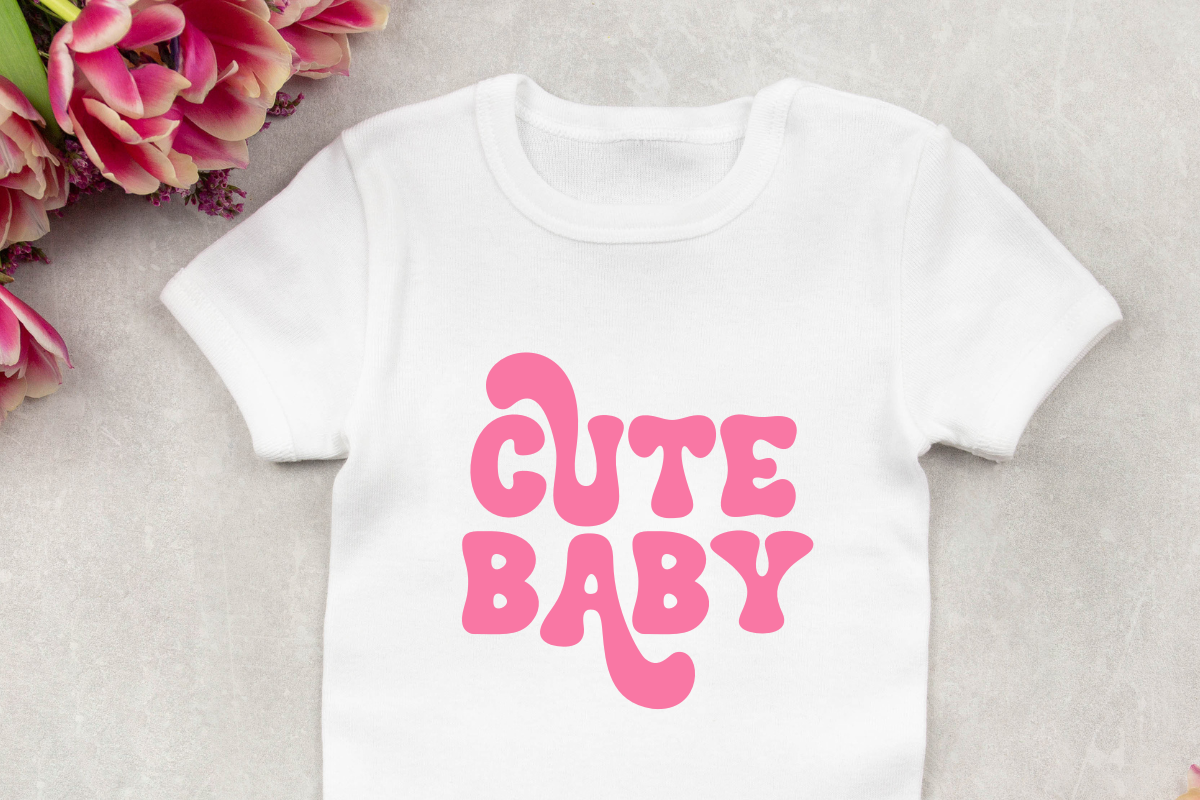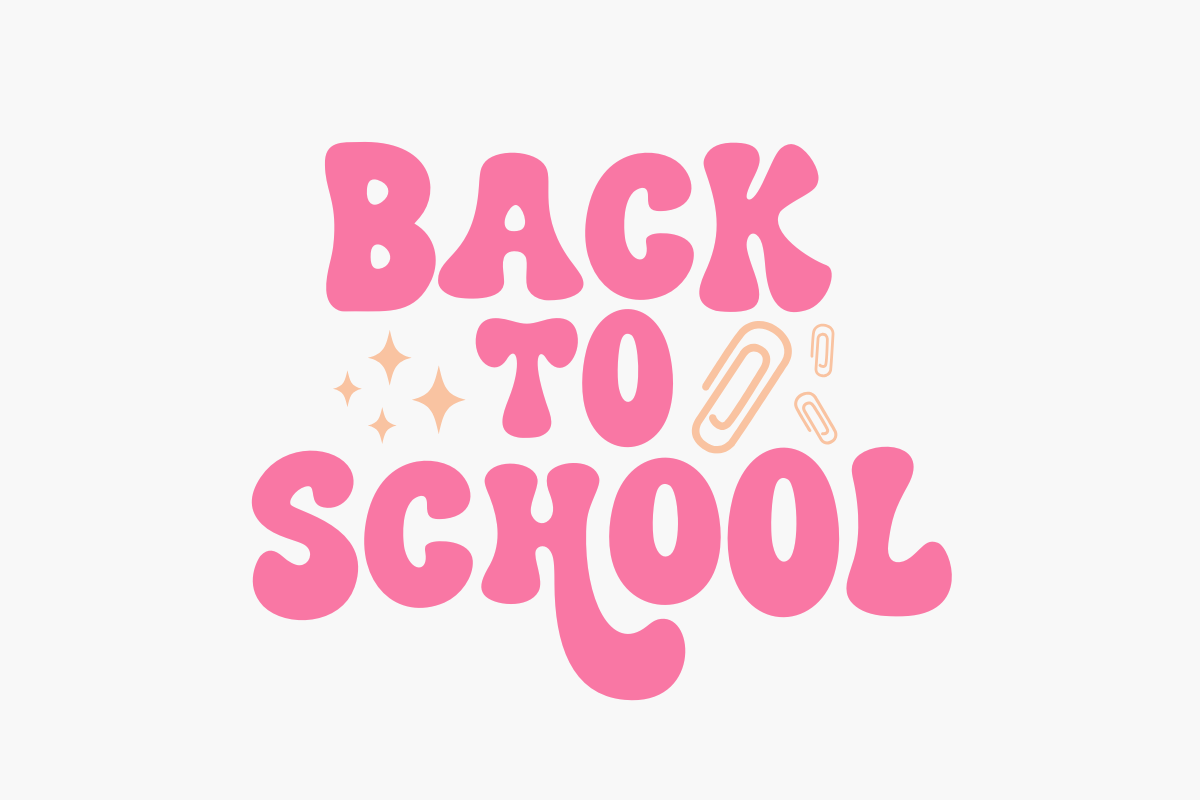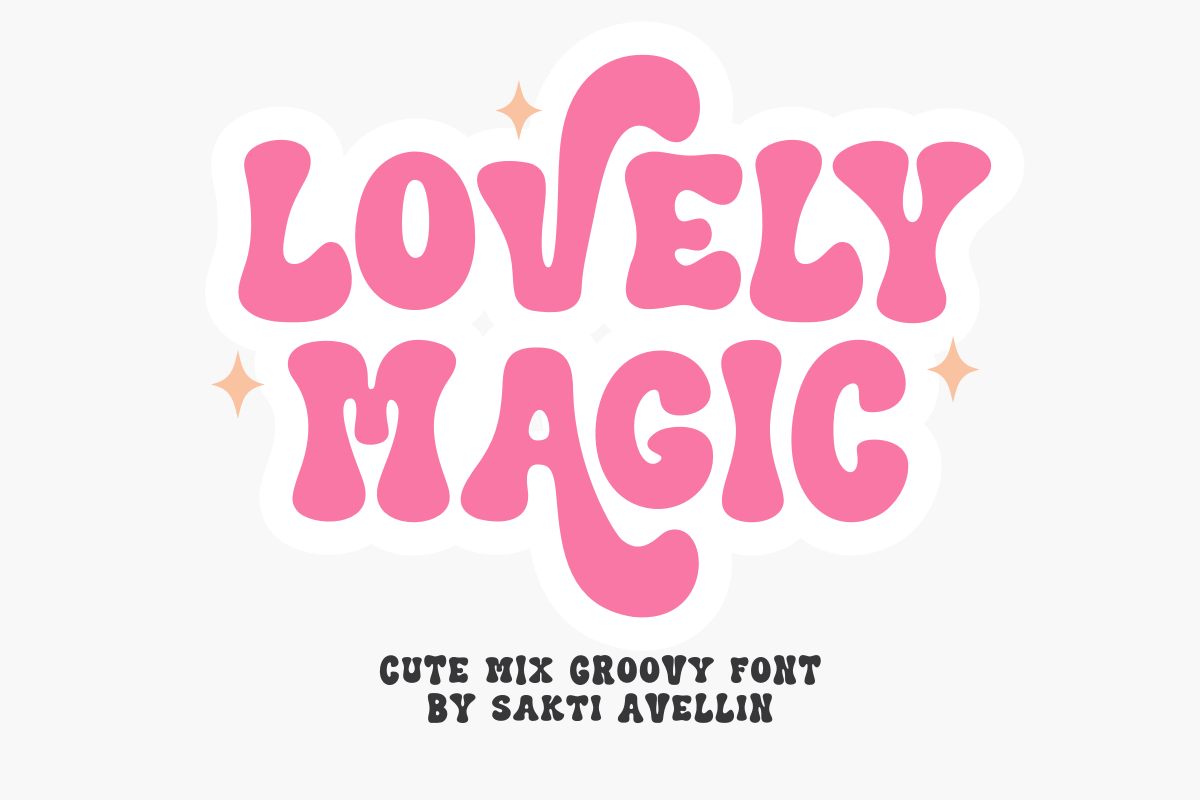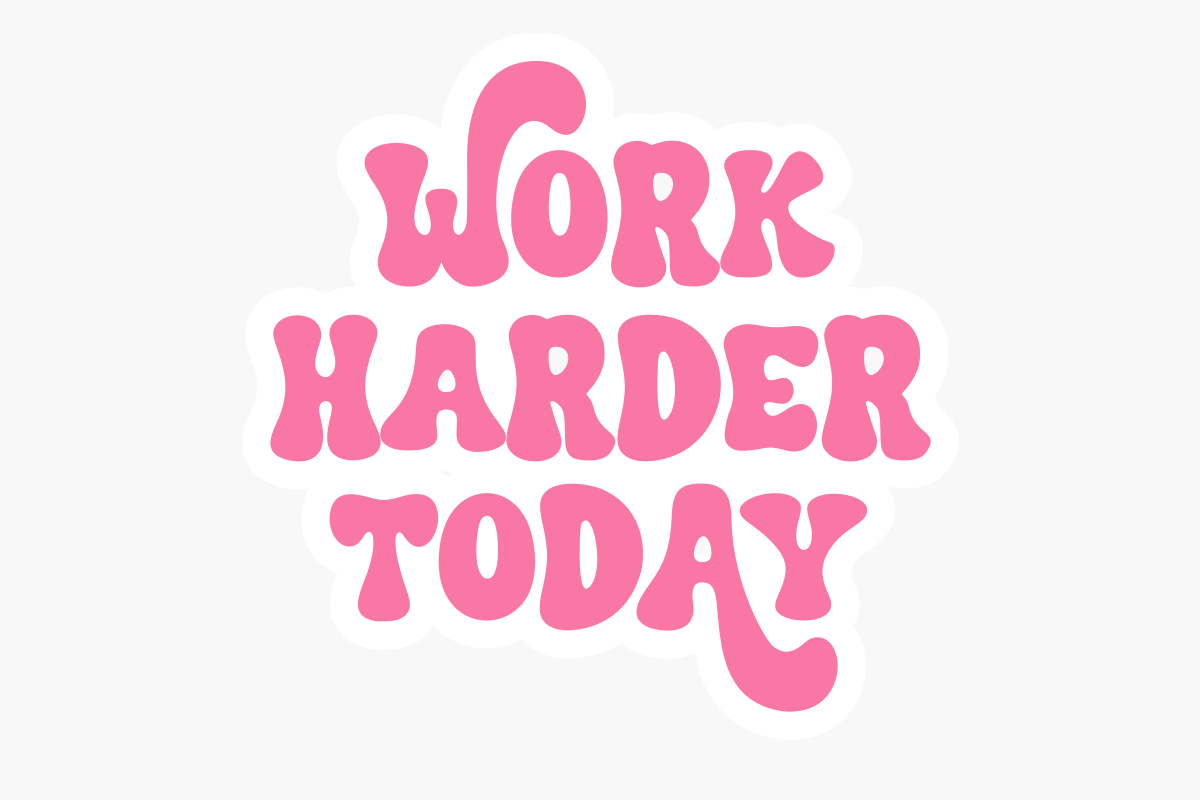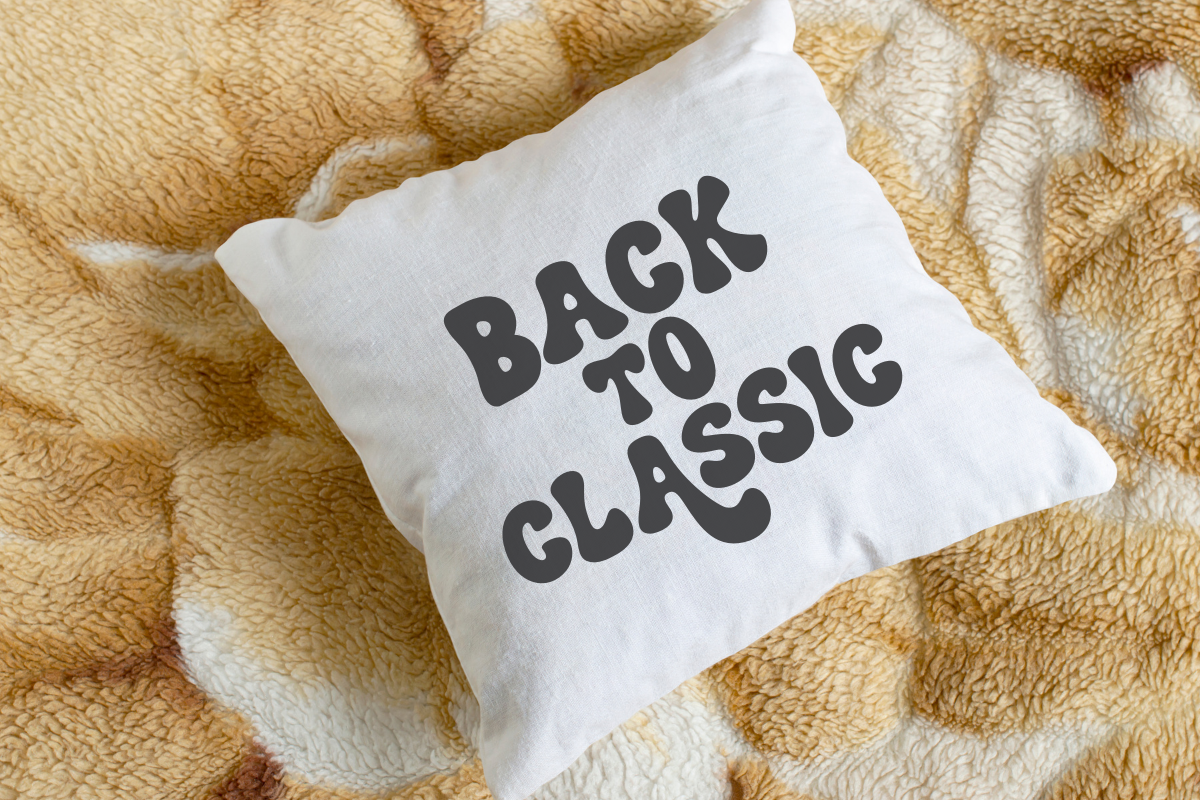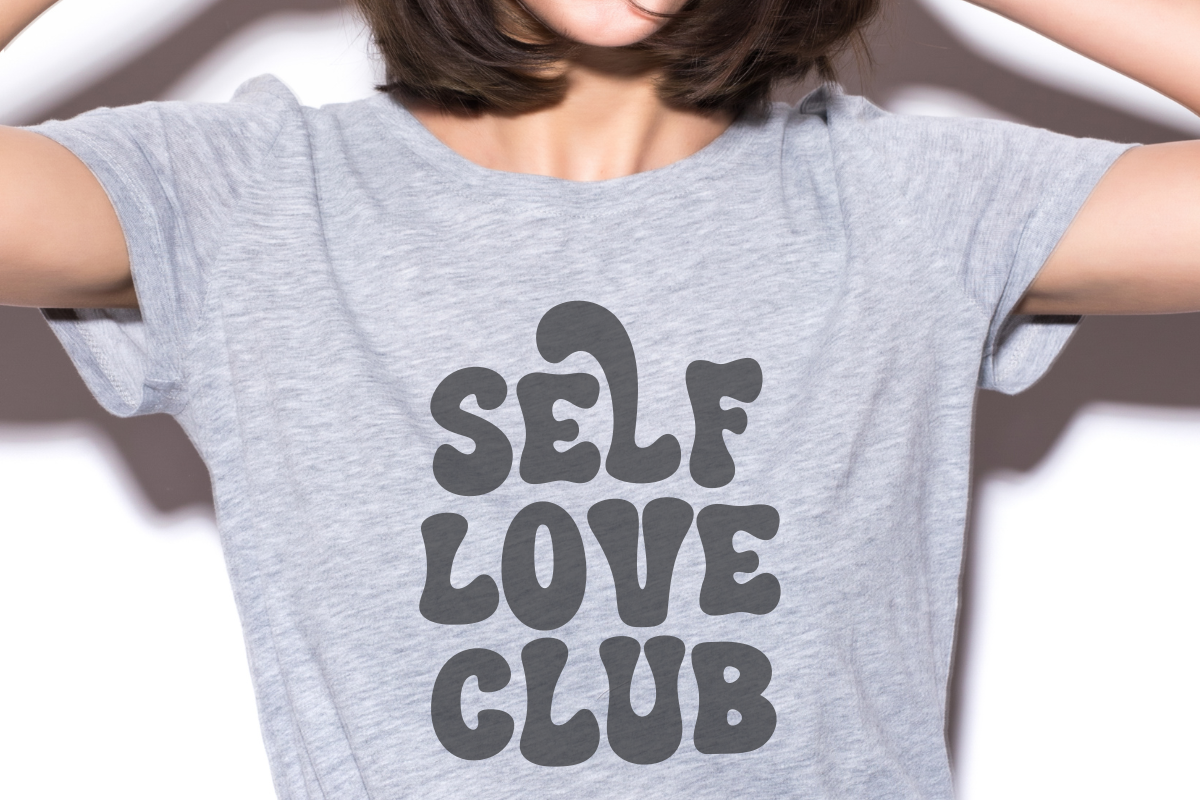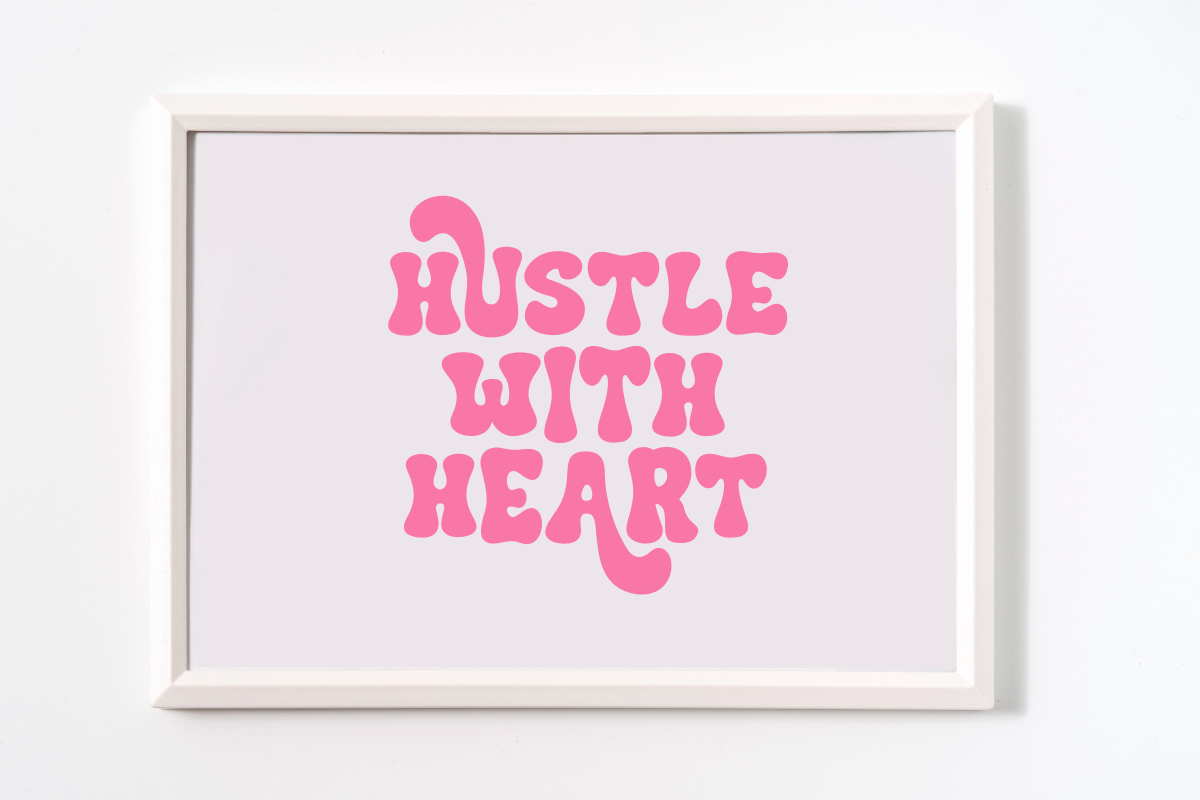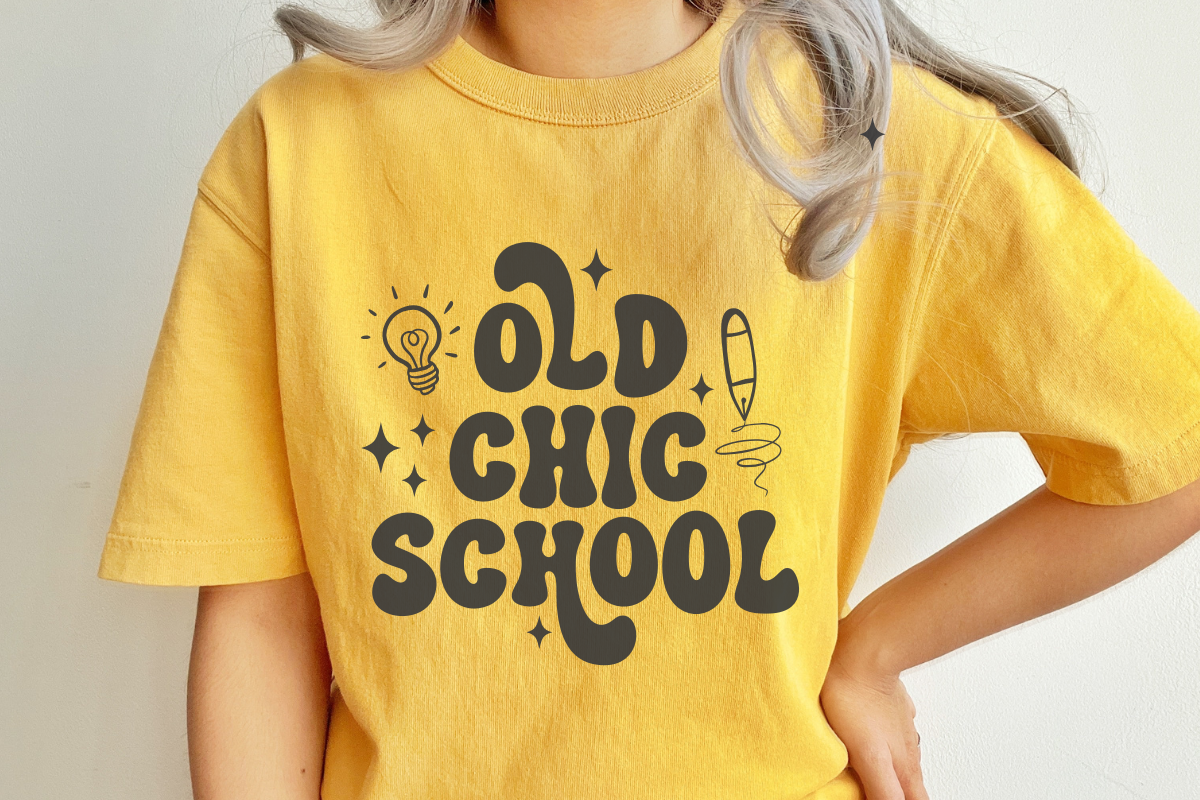
Lovely Magic - Cute Groovy Font
Lovely Magic is a captivating and cute mix groovy font that channels the bold, fluid, and playful aesthetic of the 1970s. This chunky display font features smooth, exaggerated curves and a vibrant flow, making it essential for vintage branding, fun feminine logos, retro posters, t-shirt designs, and engaging social media graphics. Its distinctive, thick style ensures it is a powerful display typeface for headlines and product packaging, appealing to a trendy audience that loves nostalgic funk and cute aesthetics. Cast a lovely spell on your creative projects with this truly mesmerizing and modern retro font!